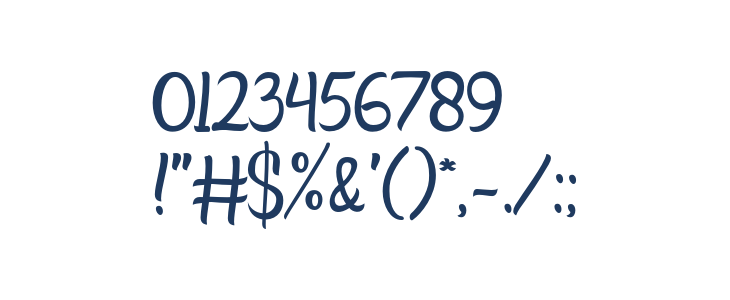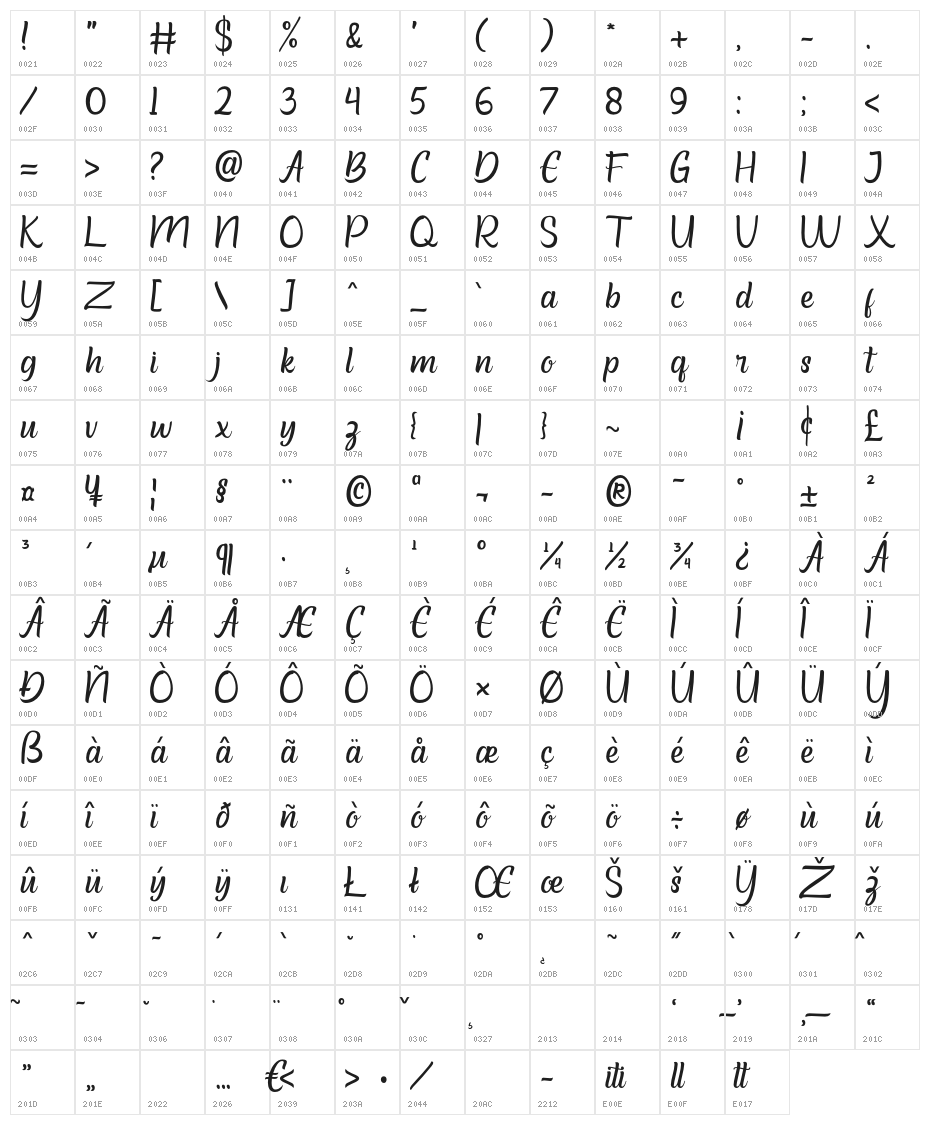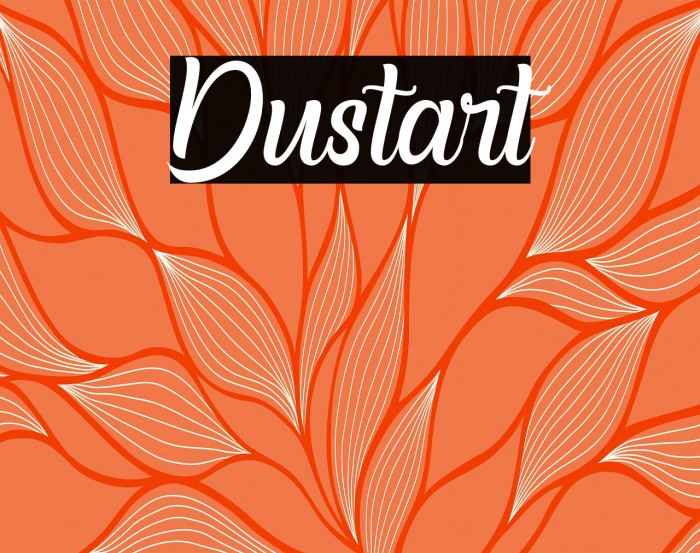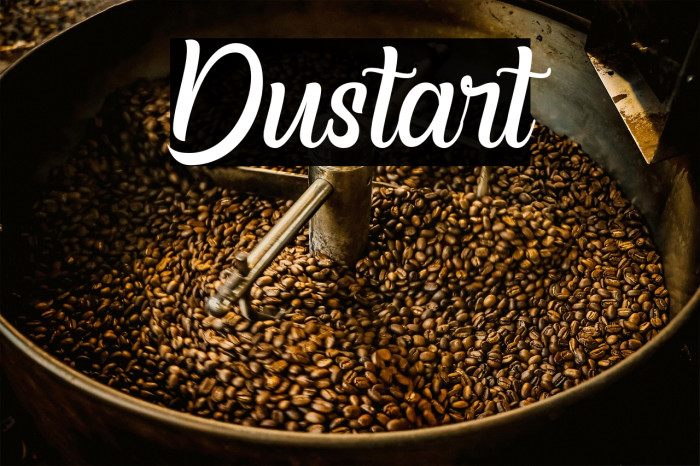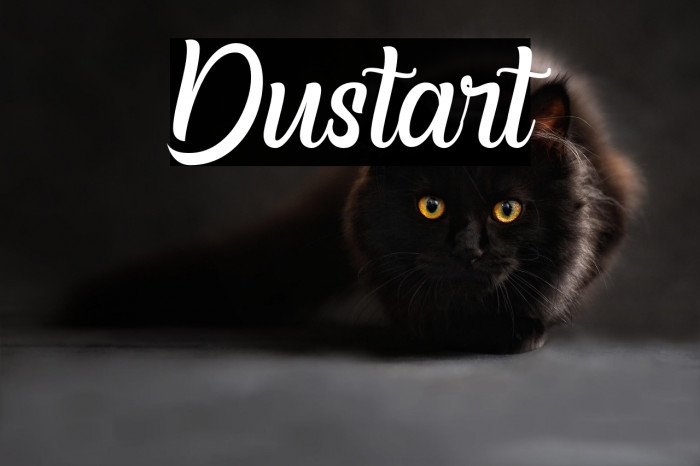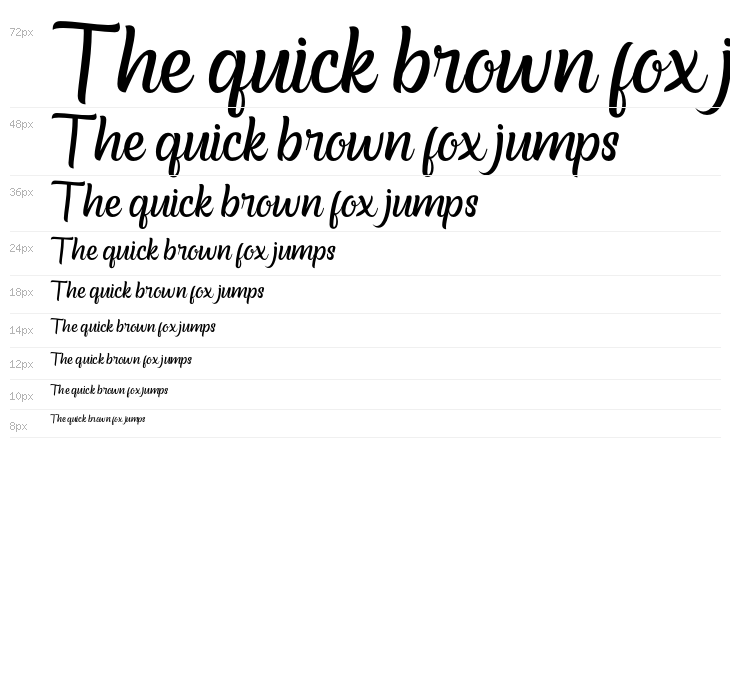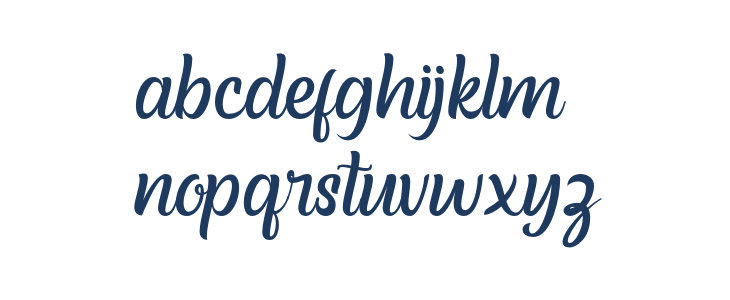
Dustart Font
Dustart Description
This font exudes a lively and dynamic energy, characterized by its flowing script style. The uppercase letters are tall and slightly slanted, giving a sense of movement and elegance. The lowercase letters maintain a consistent rhythm, with smooth curves and a playful bounce. The numerals are bold and clear, ensuring readability while maintaining the font's overall whimsical nature. Special characters are thoughtfully designed to match the font's aesthetic, making it versatile for various uses. The font's handwritten quality adds a personal touch, making it suitable for creative and expressive projects.
| Use Case | Logos, Headlines, Artistic projects |
| Proposed Projects | Ideal for invitations, greeting cards, branding, and artistic projects that require a personal touch. |